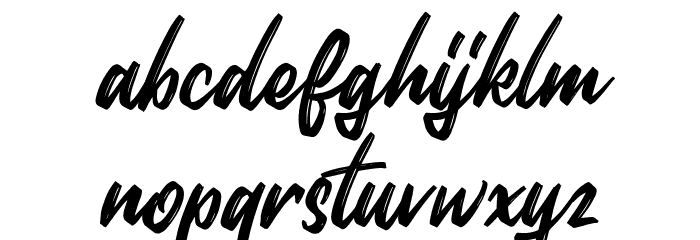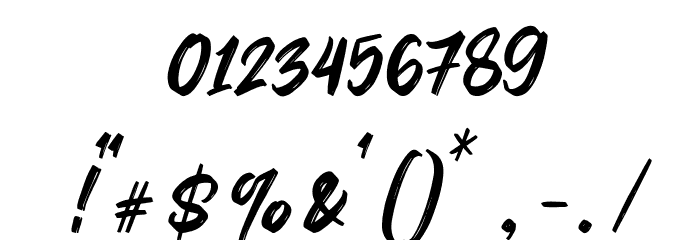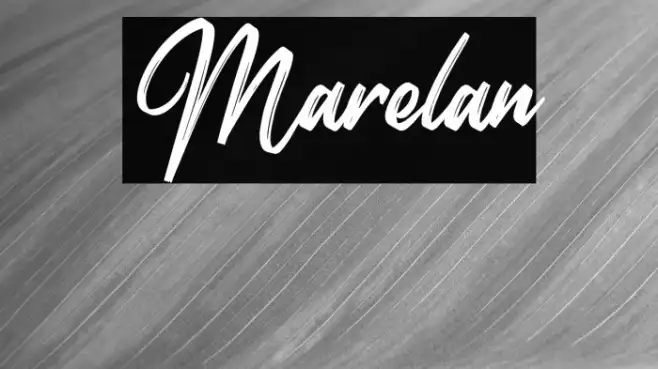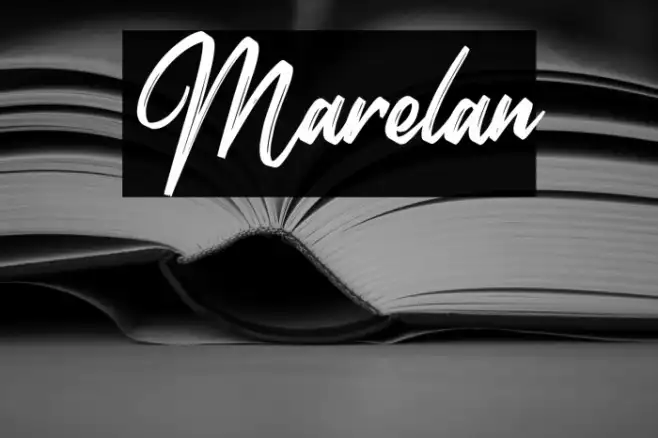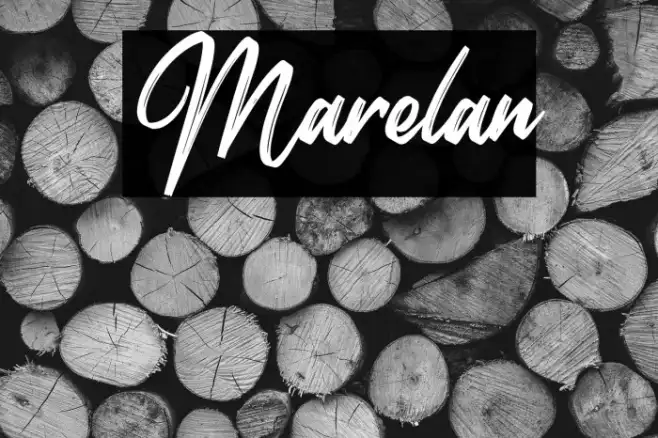
Marelan Font
This font features a dynamic and flowing script style, characterized by its elegant and cursive letterforms. The uppercase letters exhibit a graceful slant with smooth, continuous strokes, while the lowercase letters maintain a bold and expressive appearance. The numerals are consistent with the script style, offering a cohesive look across all characters. Special characters are designed with the same fluidity, enhancing the overall aesthetic. The font's boldness and artistic flair make it suitable for creative and decorative applications.
A bold, cursive script font with elegant, flowing strokes.
- Proposed Projects: Ideal for wedding invitations, greeting cards, branding, and logo design.
- Use Case: Logos, Headlines, Invitations